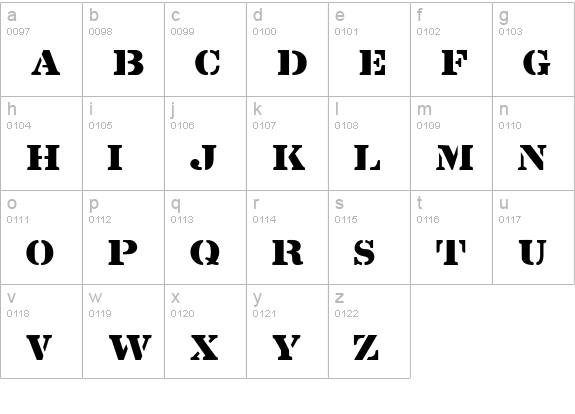
Military Normal Font Details
Military Normal is the standard, neutral variant in the Military typeface family \xE2\x80\x94 well suited to general body text, paragraphs, and standard typographic work.
Military Normal font is a robust and authoritative typeface designed for projects that require a strong and commanding presence. With its no-nonsense, blocky letterforms and sharp angles, this font exudes a sense of power and discipline. Perfect for military-themed designs, posters, and branding materials, Military Normal font commands attention and conveys a sense of strength and determination. Best of all, Military Normal font is available for free download at FontsMarket.com. Whether you're working on a project that needs a bold and impactful typeface or simply want to add a touch of military-inspired flair to your designs, Military Normal font is the perfect choice. Download it today and take your designs to the next level with this striking and versatile typeface.